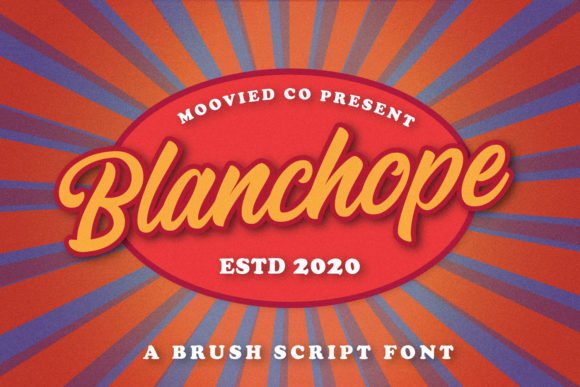
Unleash Your Creativity with the Blanchope Font
Have you ever stared at a blank canvas, unsure of where to begin, yet feeling a spark of inspiration waiting to be ignited? For creatives like us, these moments are the perfect opportunity to let our imagination run wild. Whether you’re planning a social media post, designing a wedding invitation, or crafting a custom logo, the right font can make all the difference.
That’s where the Blanchope Font comes in – a modern handwritten font that brings a touch of elegance and sophistication to any design. Its versatility makes it perfect for a wide range of applications, from Instagram-friendly graphics to calligraphy scripts for DIY projects. By incorporating the Blanchope Font into your creative projects, you’ll add a unique and personalized touch that sets you apart from the crowd.
For designers, the Blanchope Font is a valuable asset that can elevate your work and make it truly stand out. Its versatility, combined with its stylish and modern aesthetic, makes it an essential tool for anyone looking to add a personal touch to their designs.
Blanchope Font Key Features
- Font Family: Blanchope, a unique and elegant script font
- Unique Characteristics: Features intricate connections between letters, creating a flowing and handwritten feel
Designer Review: Blanchope Font
Overall, I think the Blanchope Font has some great qualities that make it a solid choice for certain design projects. ✨
- Unique blend of modern and vintage elements, making it a great choice for projects that need a touch of nostalgia
- Highly legible, even at smaller font sizes, making it perfect for body text or headlines
- Supports a wide range of languages, including Cyrillic and Greek alphabets
However, there are some limitations that might make it less suitable for other projects:
- Some users have reported issues with kerning, which can lead to uneven spacing between letters
- Lack of bold and italic styles, which can make it difficult to create emphasis or variety in text
- May not be the best choice for projects that require a lot of customization or advanced typography
Overall, I’d say the Blanchope Font is a great choice for designers who want a unique, high-quality font for specific projects. However, it may not be the best fit for every design need.
Getting the Most Out of Blanchope Font
To get the most out of Blanchope Font, use it for headings and titles to add a touch of elegance and sophistication. Pair it with a clean sans-serif font for body text to create a visually appealing contrast. Experiment with different font sizes and styles to add emphasis and hierarchy to your design.
Blanchope Font is ideal for: wedding invitations, business cards, resumes, and any design that requires a touch of sophistication and elegance. It’s also a great choice for titles and headings in publications, websites, and social media platforms.
Alternatives to Blanchope Font for Designers
Playfair Display is a luxurious and elegant serif font, perfect for use in titles, headings, and body text where a touch of sophistication is needed. It’s ideal for magazines, books, and websites with a high-end feel. Compared to Blanchope Font, Playfair Display has a more refined and classical appearance, making it suitable for formal and high-end designs.
Great Vibes is a modern script font with a relaxed and casual feel. It’s ideal for use in titles, headings, and body text where a friendly and approachable tone is needed. Compared to Blanchope Font, Great Vibes has a more fluid and dynamic appearance, making it suitable for creative and artistic designs.